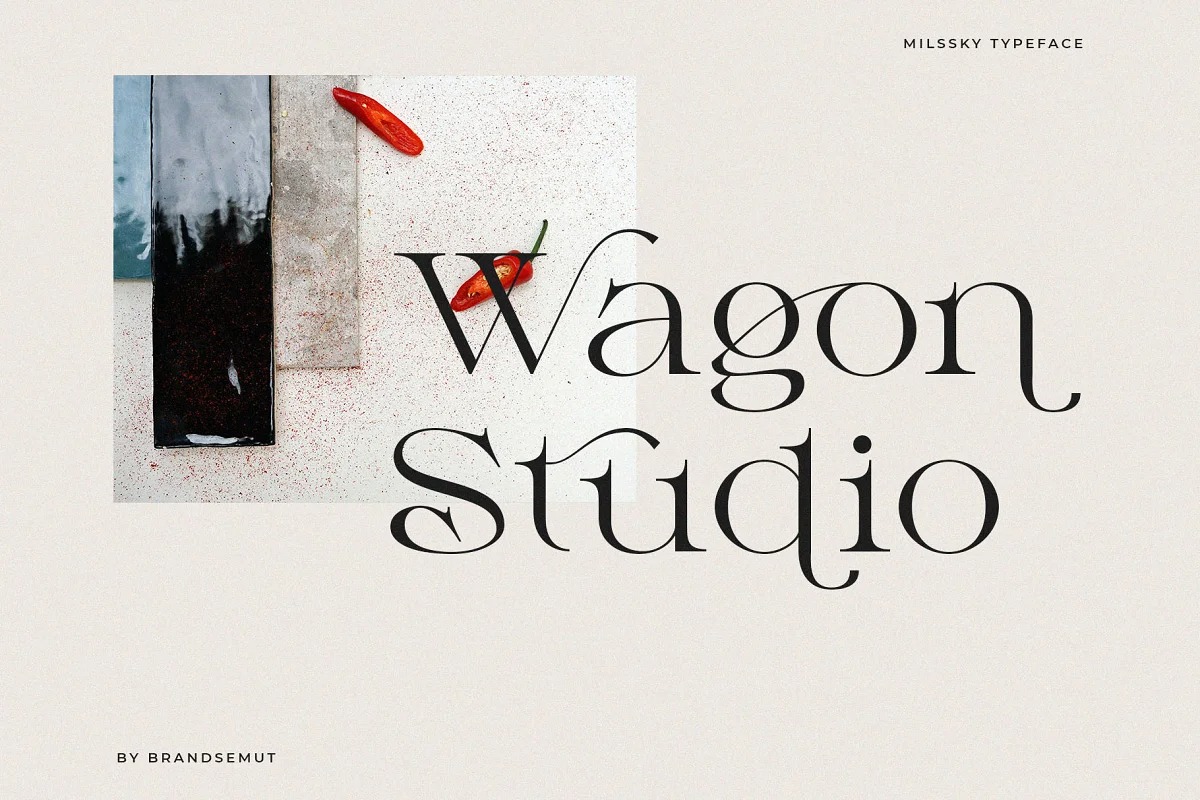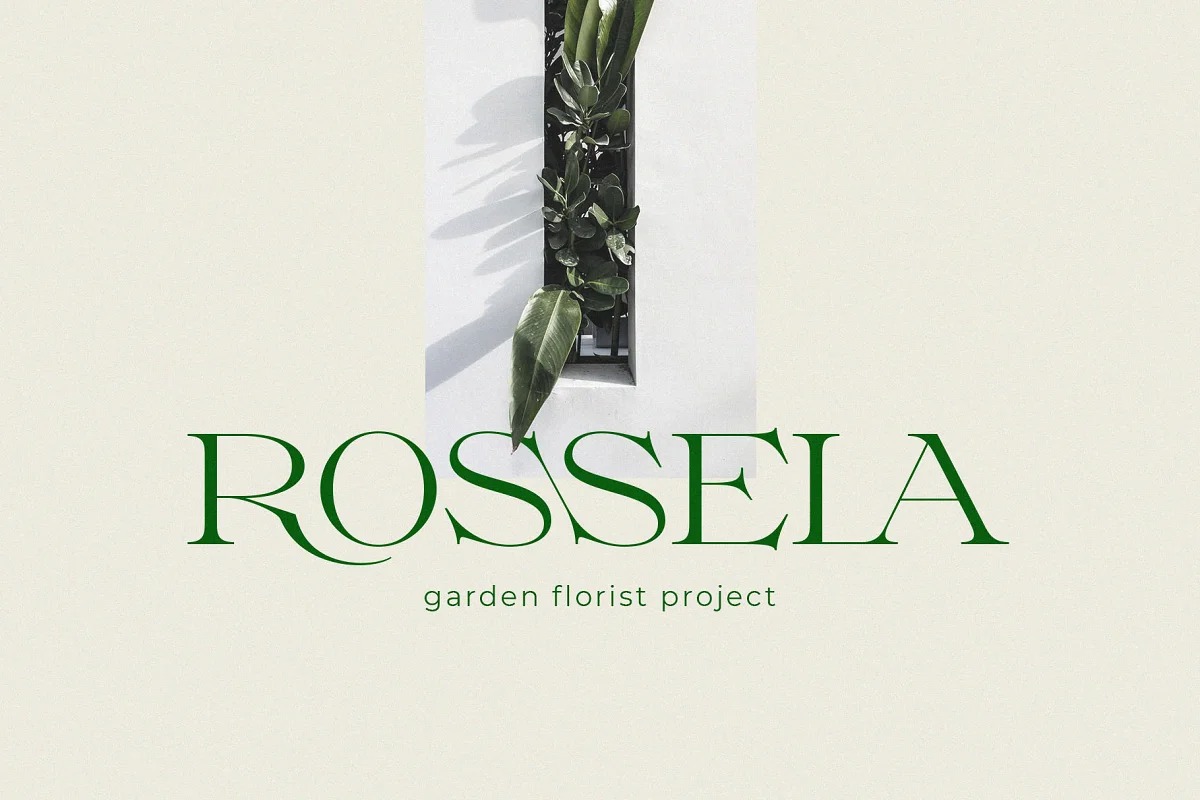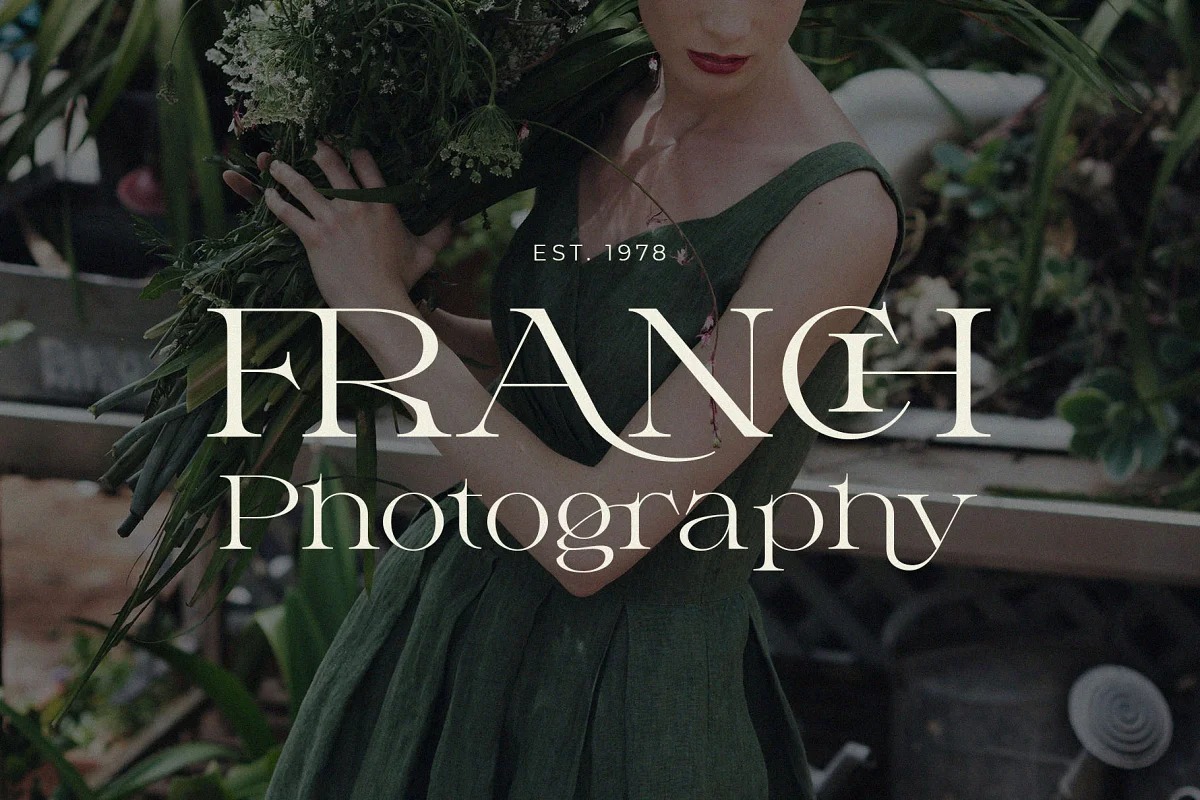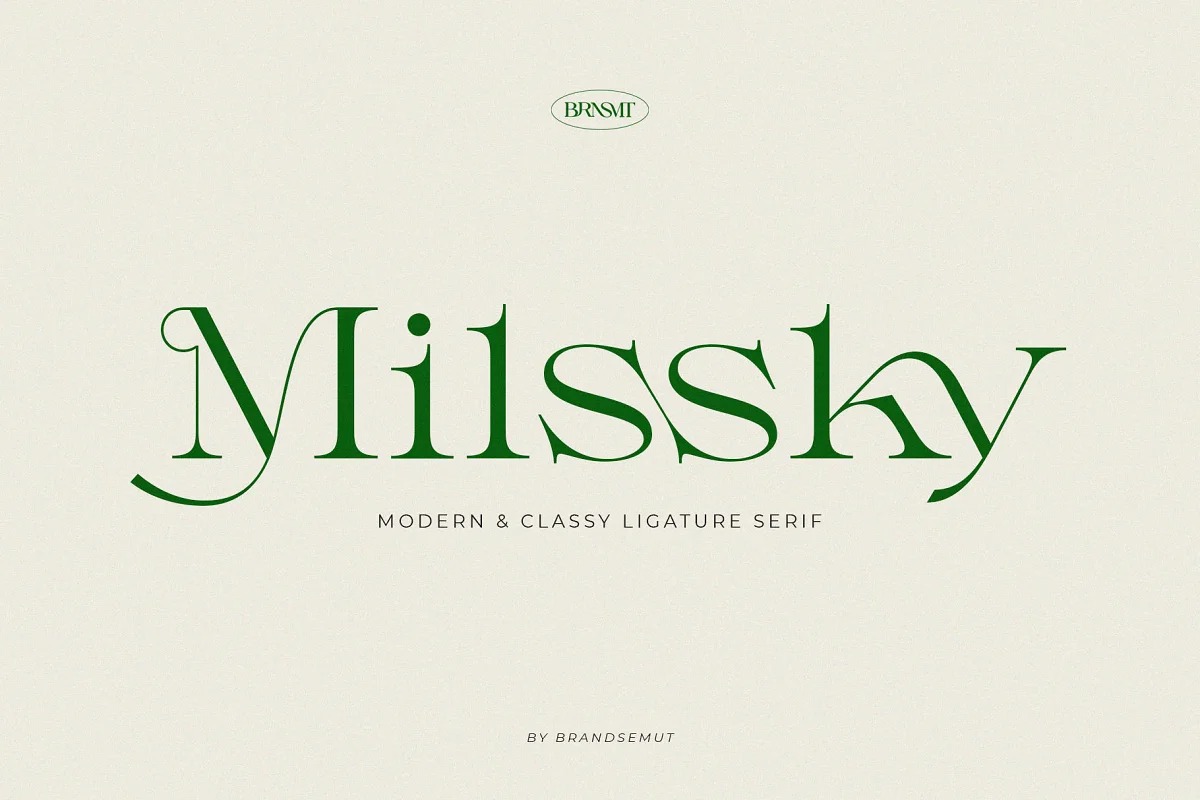
Milssky Font
Milssky Serif Font
This is an elegant stylish serif typeface created by BrandSemut with a unique ligature and aletrnate style. Milssky is a modern and classy typeface, best used as a display for headings, logos, branding, magazines, product packaging and invitations. Milssky come with clean lines and smooth curves give any project an extra touch of class.